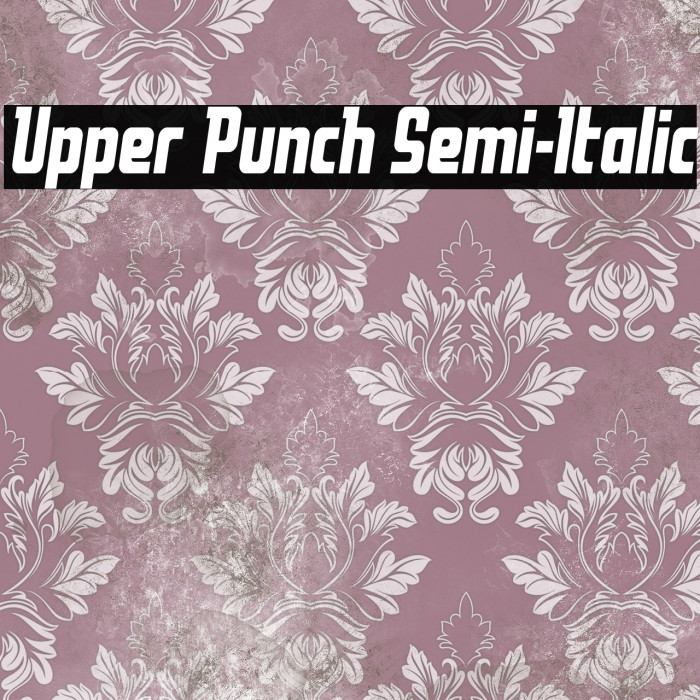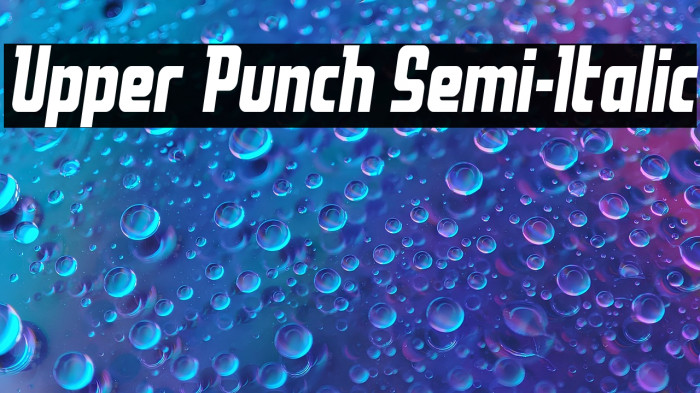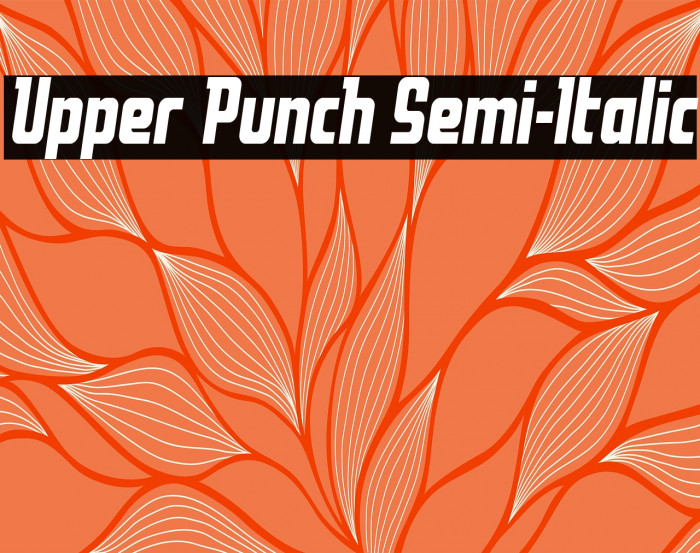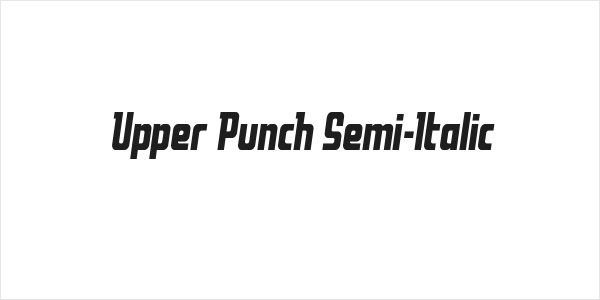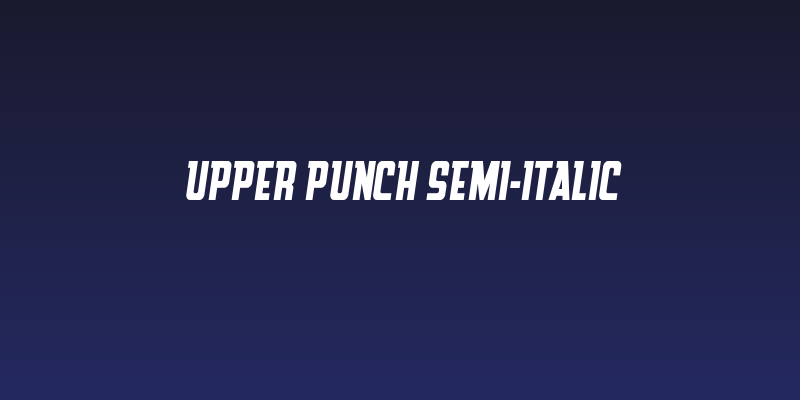
Upper Punch Semi-Italic Font
Upper Punch Semi-Italic Description
This font features a bold and dynamic style with a semi-italic slant, giving it a sense of motion and energy. The characters are robust and slightly condensed, with a strong presence that makes them ideal for impactful designs. The uppercase letters are particularly striking, with sharp angles and clean lines, while the lowercase letters maintain a consistent style that complements the uppercase. The numerals are clear and bold, ensuring readability. Special characters are designed with the same attention to detail, making them suitable for a variety of uses. Overall, this font exudes a modern and sporty aesthetic.
| Proposed Projects | Ideal for sports branding, dynamic posters, and modern advertising campaigns. |